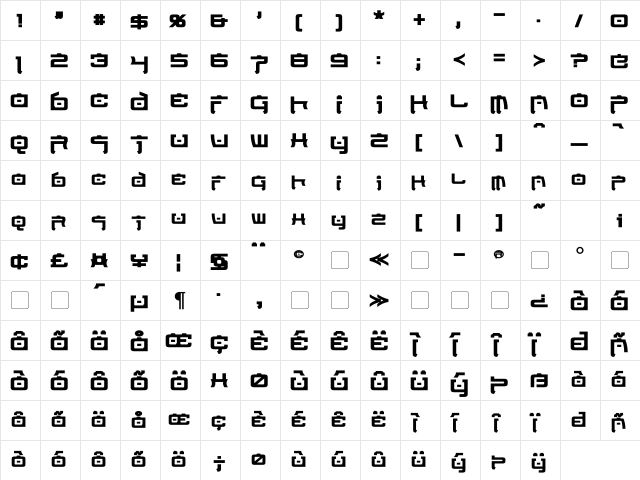
Nippon Tech Bold
Design Context for Nippon Tech Typeface
Nippon Tech has a distinctly futuristic character, with geometric precision and clean angles that feel at home in technology, gaming, and sci-fi contexts. Its bold stroke weight gives it real presence on the page.
Pro Tip: Try Nippon Tech with generous letter-spacing in UI labels and navigation — the geometric forms benefit from room to breathe.